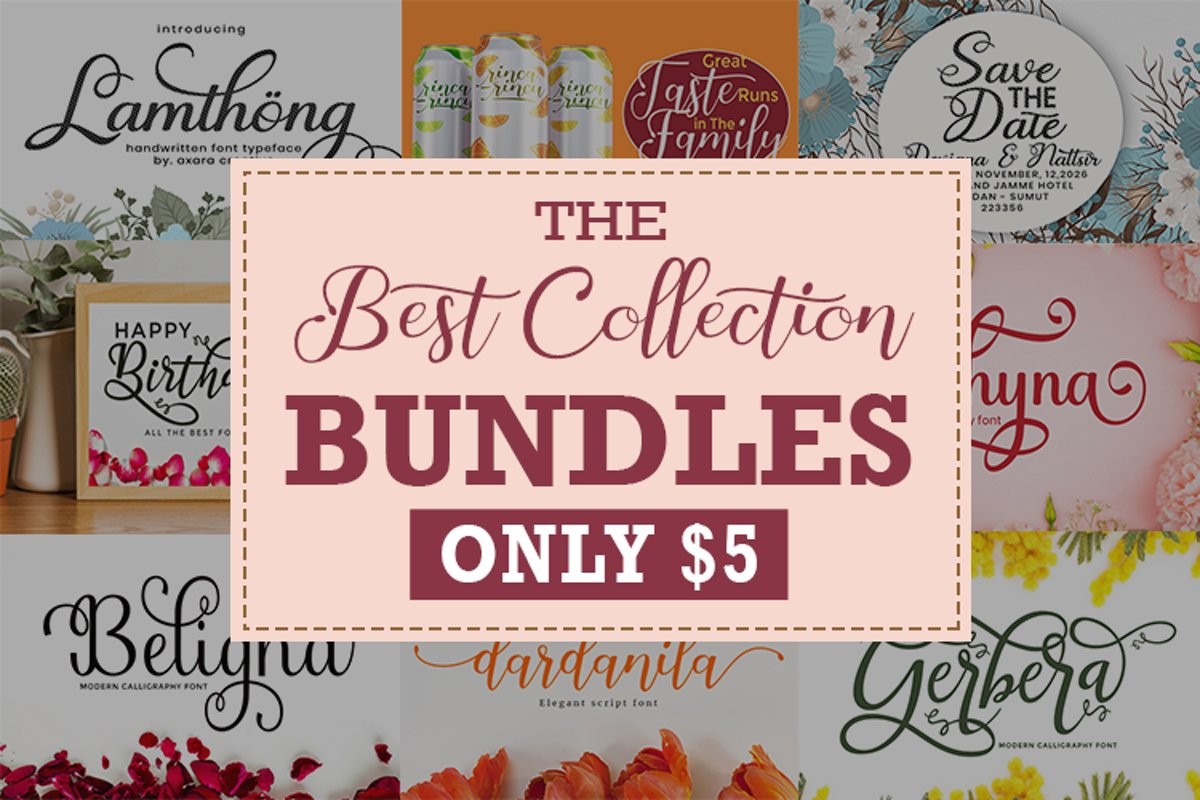
Lamthong
Dardanila
Beligna
Kehyna
Garbera
The Best Collection Calligraphy is packed with 5 elegant script font families for your creative typography projects. You can create a logo or beautiful frame for your home. Or just use for your business, book covers, stationery, marketing, and more.
Main Features :
• Stylistic Alternate
• Contextual Alternate
• Numeral
• Punctuation
• Swash Variant
• PUA Encoded